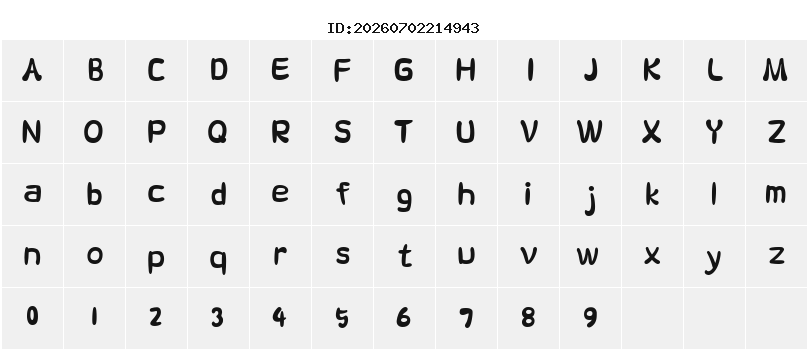
一品包装体 Preview
• Font Name: 一品包装体
• Full Font Name: yipinbaozhuangti Regular
About 一品包装体.ttf
一品包装体.ttf is a modern, elegant sans-serif font designed for ultimate readability and visual harmony. Perfect for branding, headlines, web design, and print materials.